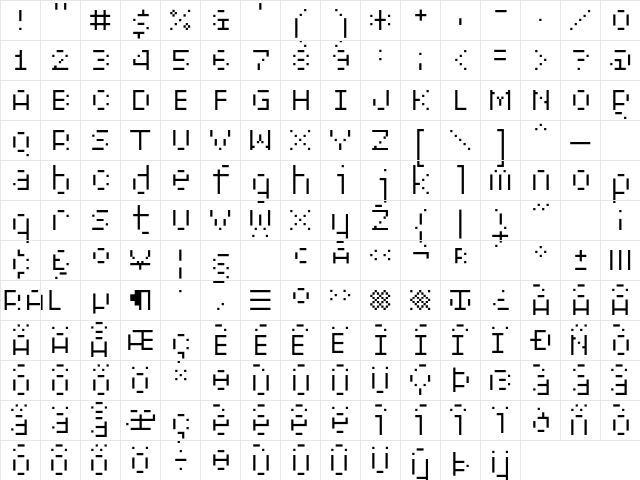
XERXES ELEVENALT Free Font
XERXES ELEVENALT
Style: ELEVENALT
Design Context for XERXES
XERXES is a composed and adaptable typeface that performs quietly and consistently across a wide range of design contexts.